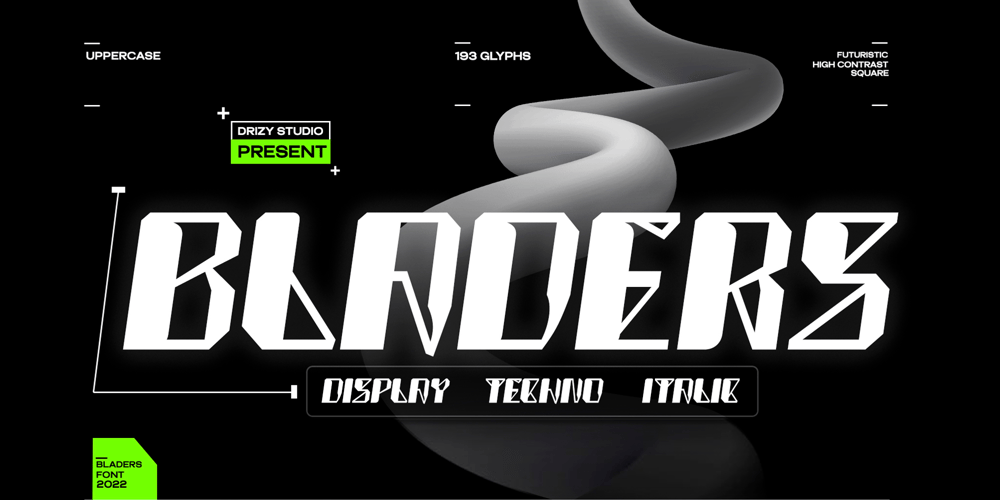
Bladers
Bladers font
Bladers Font Family was designed by Panca Ahmadi Hasan and published by Drizy Font. Bladers contains 1 styles and family package options. Bladers – Modern Techno FontBladers is a Modern Techno Font from Drizy studio. Offering all the basic styles you will need especially modern theme project.Bladers Features:Uppercase Numeral & PunctuationMultilingualsDo not hesitate to contact me if you have any questions about this product. Hope you like it and enjoy